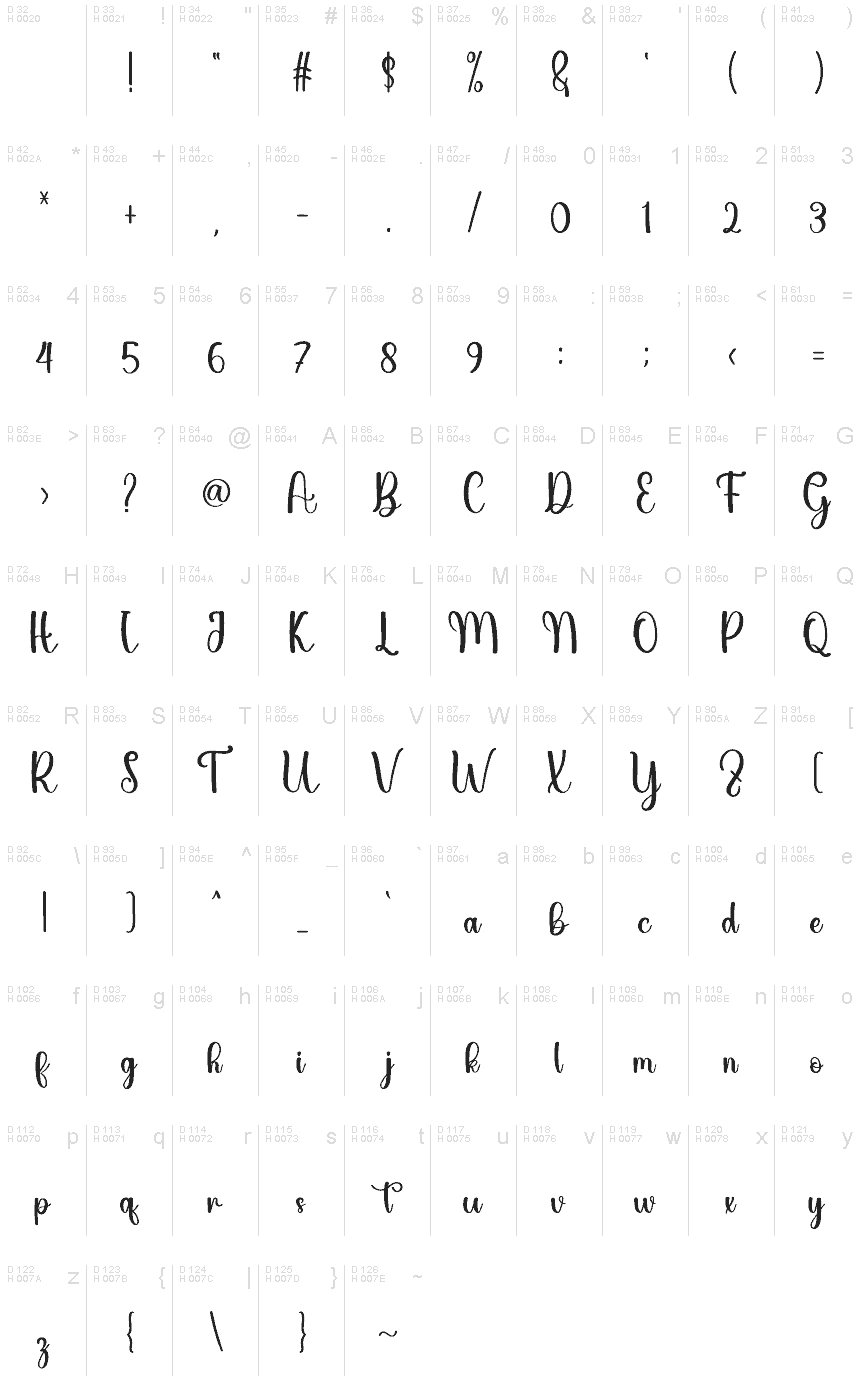
Listen
Listen font from PiPi Creative, a free handwritten font that is elegant, fluid, harmonious, and expressive. It has rounded shapes with curves and no sharp angles; it almost looks like the letters have been printed using a brush pen. The visual combination of modernity with style is simply impeccable.